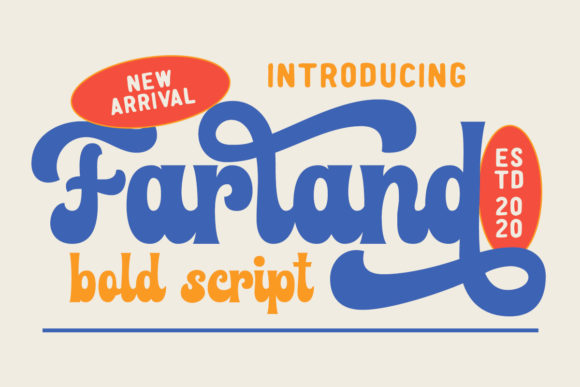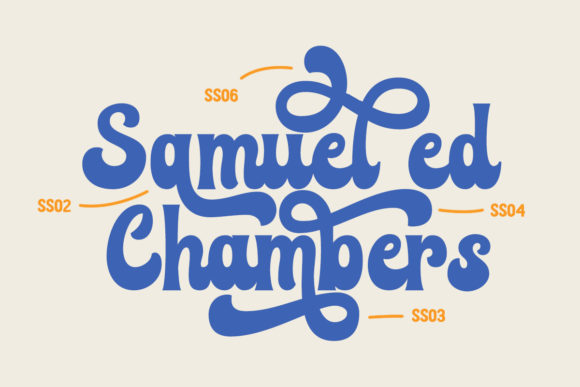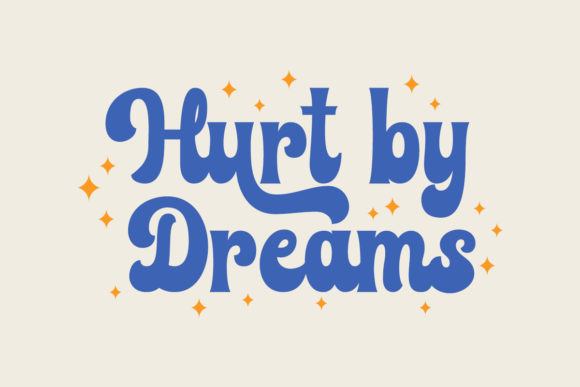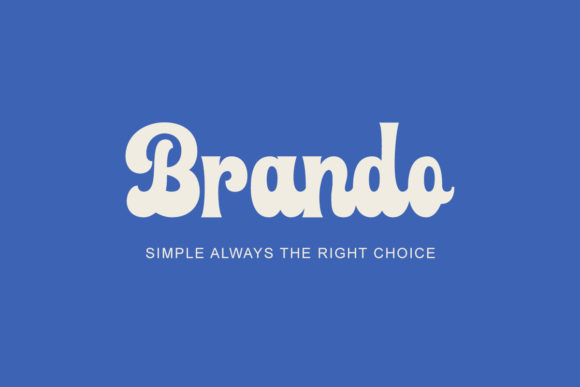
About Farland Font
Farland is a gorgeous and bold handwritten font, crafted to give your headlines and logotype projects a stylish touch. This font reads as strong, confident, and dynamic and can add tons of nostalgic character to your designs.